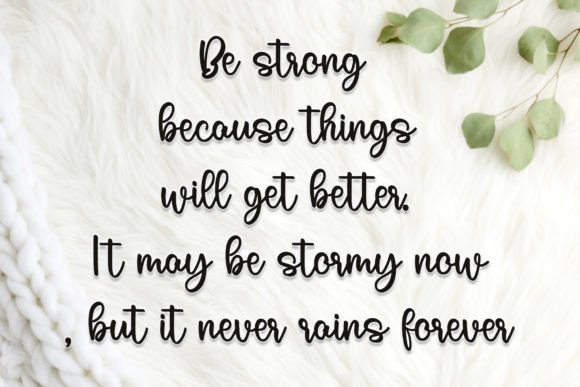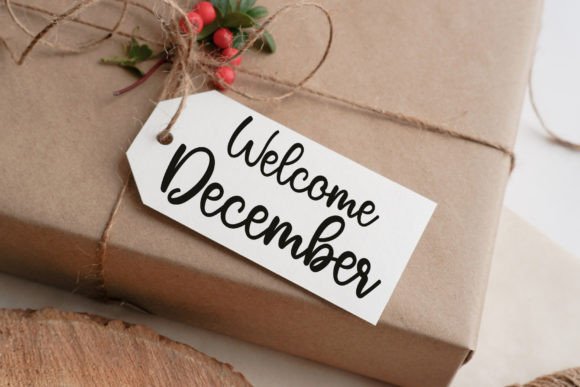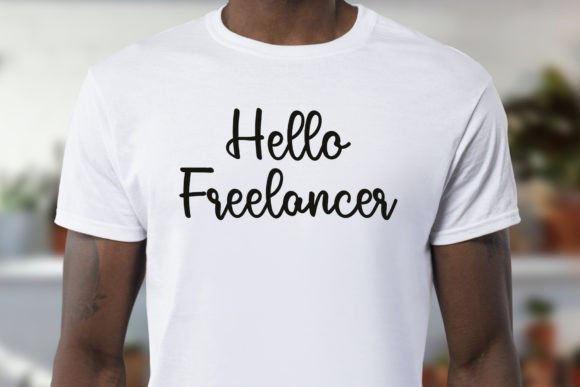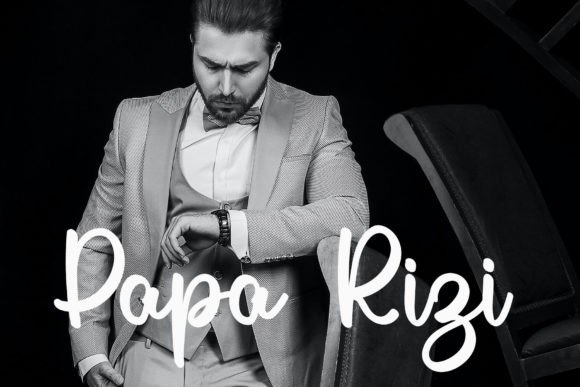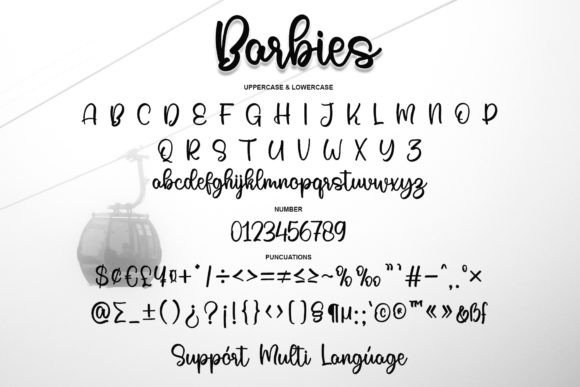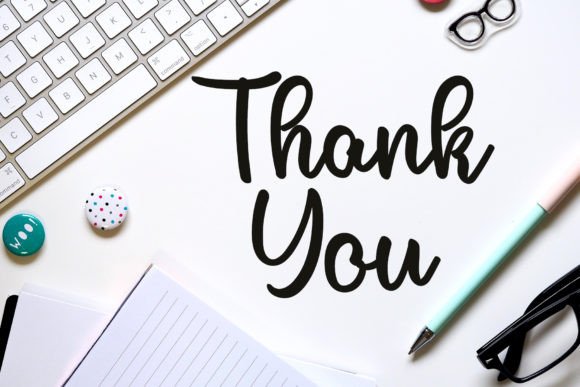
Discover the Timeless Beauty of Barbies Font
As a designer, there’s nothing quite like the thrill of finding the perfect font to bring your creative vision to life. Remember that moment when you stumbled upon a font that just clicked with your project’s aesthetic? For many of us, that moment is what drives our passion for design. And for those who have been searching for a font that embodies the perfect blend of style and sophistication, the Barbies Font is about to become your new best friend.
Barbies Font is a stunning handwritten font that exudes a contemporary atmosphere and impeccable form, inspired by the timeless classic calligraphy that never goes out of style. With its balanced and varied design, this font is the perfect choice for designers looking to elevate the beauty of their projects. Whether you’re working on a fashion magazine, a luxury brand, or a wedding invitation, the Barbies Font is sure to add that extra touch of elegance and refinement that sets your work apart.
Barbie Font Key Features
- Unique Characteristics: The Barbie Font features a playful, cursive design with rounded edges and a childlike feel, making it suitable for children’s products, fashion, and lifestyle brands.
- Kerning and Ligatures: The font includes advanced kerning and ligature features, ensuring smooth text rendering and a professional appearance.
- Font Weight and Style: The font comes in multiple weights and styles, including bold, italic, and regular, allowing for versatility in design applications.
Barbies Font Review
As a designer, I was excited to dive into the world of Barbie’s Font. The first thing that caught my attention was the playful, cursive nature of the font. ✨ It’s perfect for creating a whimsical, childlike feel in designs, which is exactly what I think the font is going for.
One of the things I appreciate about Barbie’s Font is its consistency. The lines are smooth, and the letterforms are well-spaced, making it easy to read and use in various contexts. ✨ Additionally, the font comes in a range of weights, from light to bold, which gives designers a lot of flexibility.
While Barbie’s Font is great for creating a playful feel, it may not be the best choice for more formal or professional designs. ⚠️ The font’s cursive nature can also make it difficult to read in certain contexts, such as at small sizes or in tight spaces.
Overall, I think Barbie’s Font is a solid addition to any designer’s toolkit. It’s perfect for projects that require a playful, childlike feel, and it’s easy to use and customize. However, it may not be the best choice for more formal designs or situations where readability is a concern.
Barbie’s Font is commonly used in:
1. Children’s designs and materials, such as party invitations, coloring books, and educational materials.
2. Fashion and beauty designs, such as magazine covers, advertisements, and product labels.
3. Creative and playful projects, such as social media graphics, blog posts, and marketing materials.